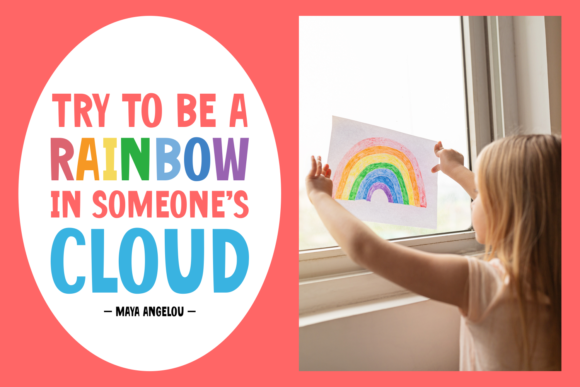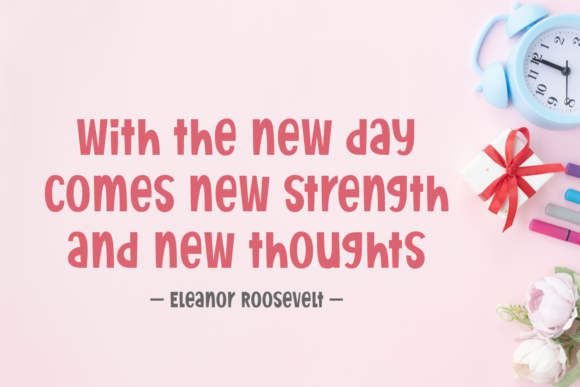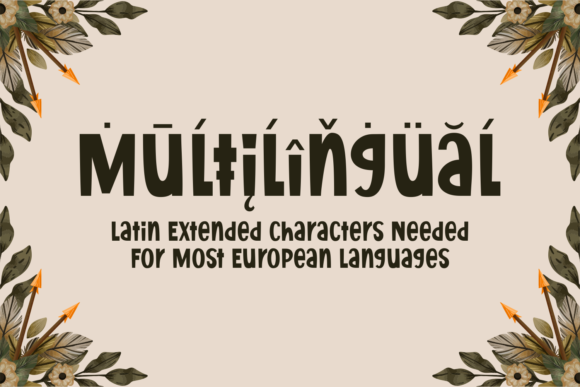
Elishe Font
Elishe is a fun, adaptable, and cool display font. No matter the topic, this font will be an incredible asset to your fonts’ library, as it has the potential to elevate any creation.